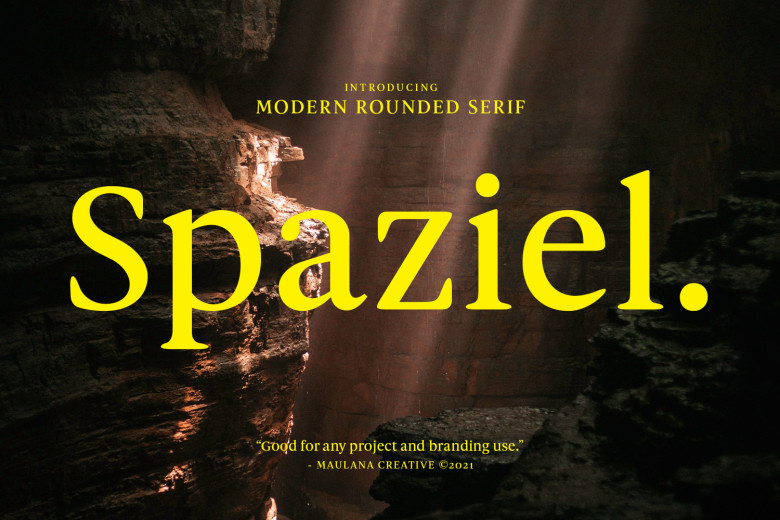
Spaziel Font
Spaziel is a modern round serif font. With regular round stroke, and fun character. So this font will give you an extra creative work. Spaziel font support multilingual more than 100+ language.
This font is suitable for a logo, a short text even a long text paragraph and good for your secondary text font Script typeface.
Spaziel Serif Font